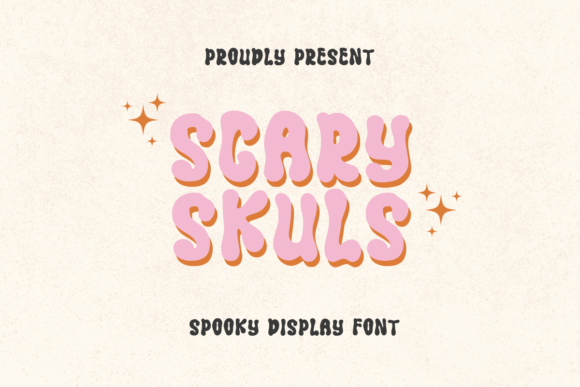
Prepare to be mesmerized by the chilling yet captivating aura of Scary Skulls, a display font that will send shivers down your spine and turn your digital creations into haunted masterpieces. Crafted with meticulous care by the talented artisans at Masyafi Studio, this font embodies the essence of the macabre, inviting you to unleash your inner ghoul.
Picture this: your website, adorned with the haunting elegance of Scary Skulls, casting a spellbinding charm over visitors. Your words will dance across the screen, imbued with an otherworldly allure that will leave an unforgettable mark. Or perhaps you envision your social media posts, transformed into eerie works of art, capturing the attention of your followers and sending shivers of anticipation down their spines.
Scary Skulls isn't just a font; it's a gateway to a realm of limitless creativity. Its spooky and unique style will make your mugs, t-shirts, and tote bags stand out from the crowd, leaving a lasting impression on all who behold them. Greeting cards adorned with its hauntingly beautiful characters will carry messages filled with spine-tingling charm.
But Scary Skulls isn't just about aesthetics; it's also a font imbued with versatility. Its ability to evoke a range of emotions, from the playfully spooky to the downright terrifying, makes it the perfect choice for designers and content creators seeking to cast a spell over their audience.
Join the legions of satisfied users who have succumbed to the allure of Scary Skulls. Let its eerie elegance captivate your imagination and transform your digital creations into haunting masterpieces. Embrace the power of the macabre and let your creations dance with the spirits of the night.